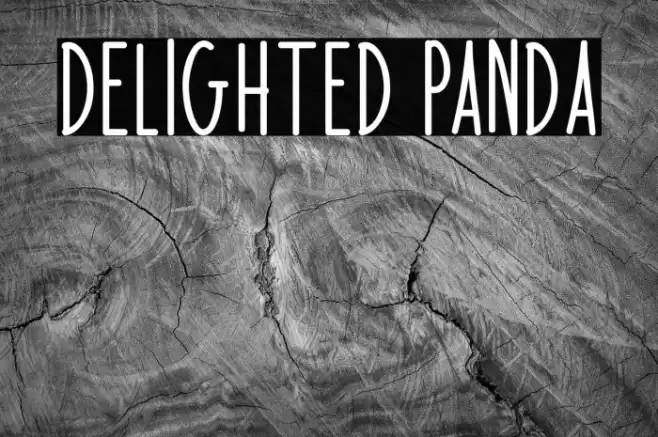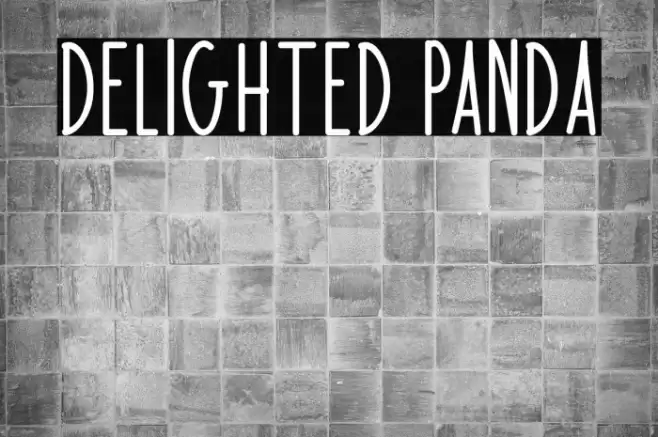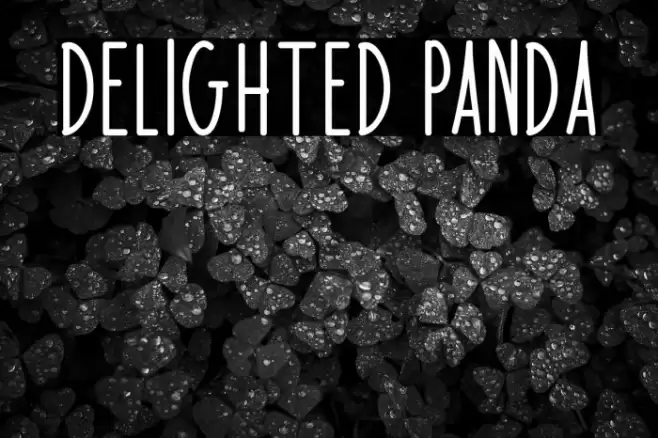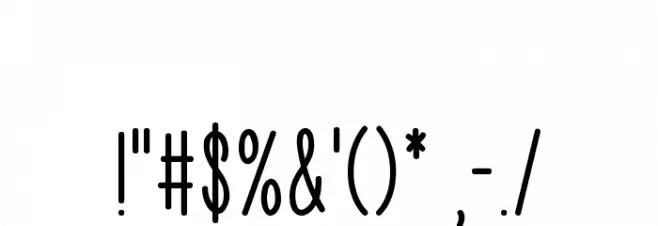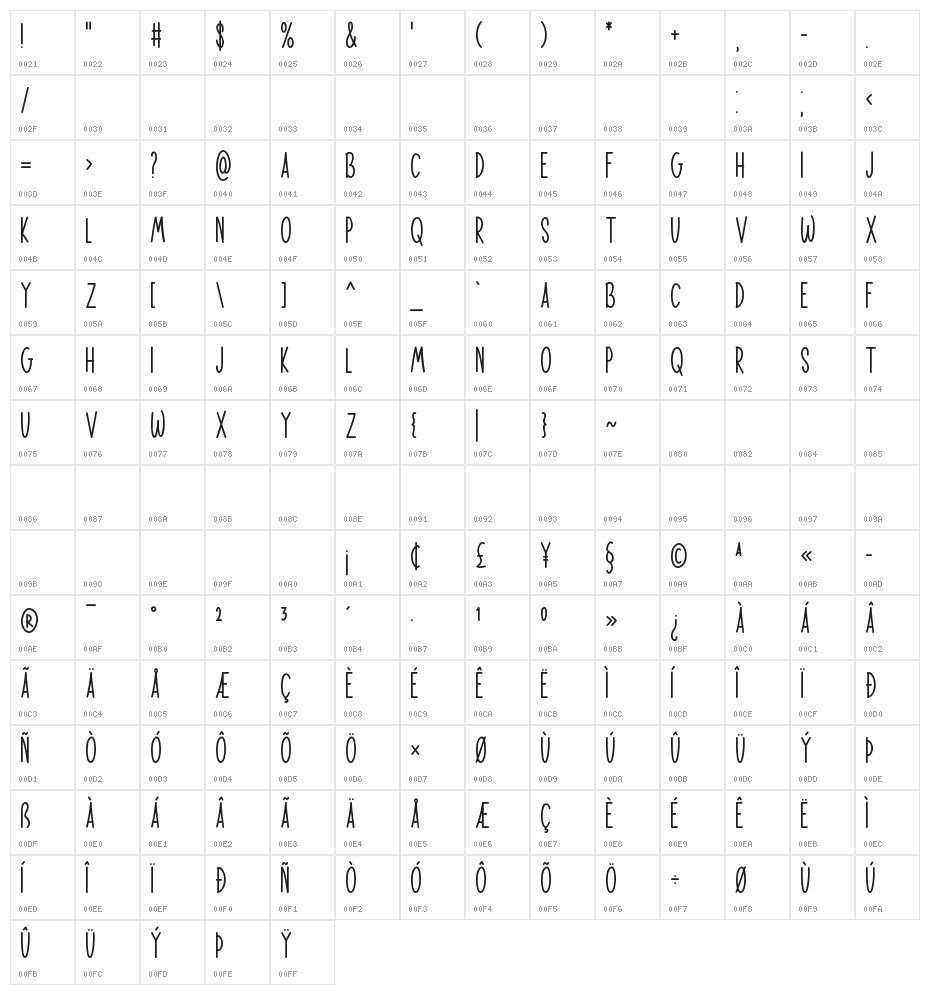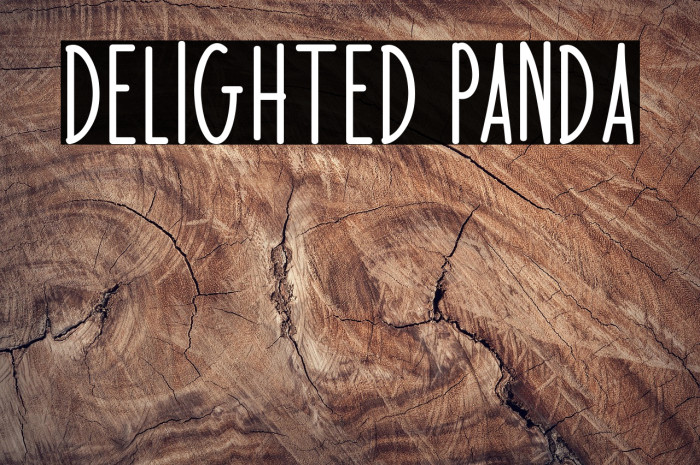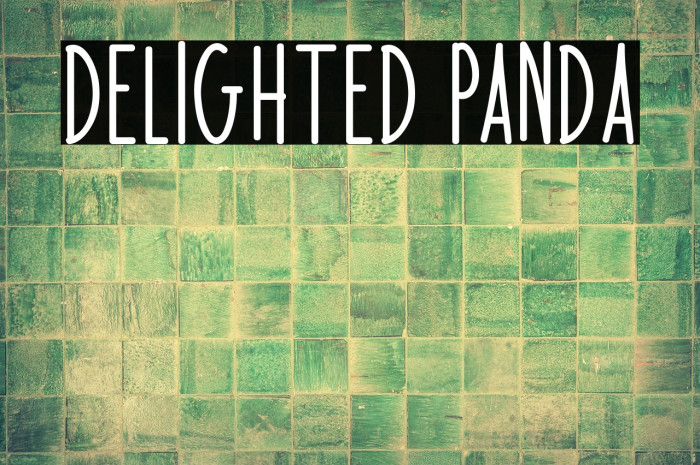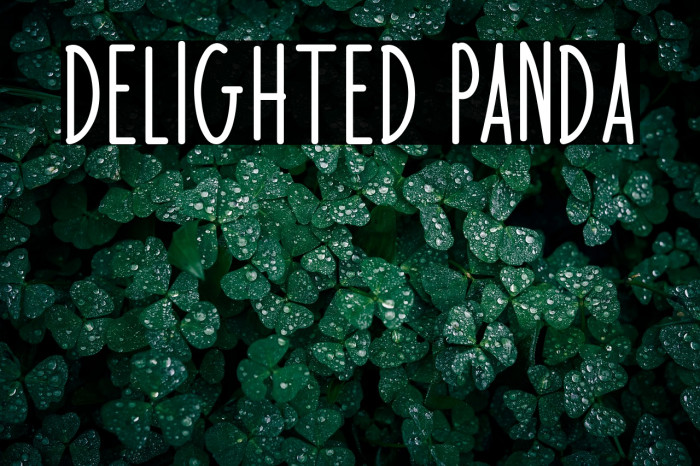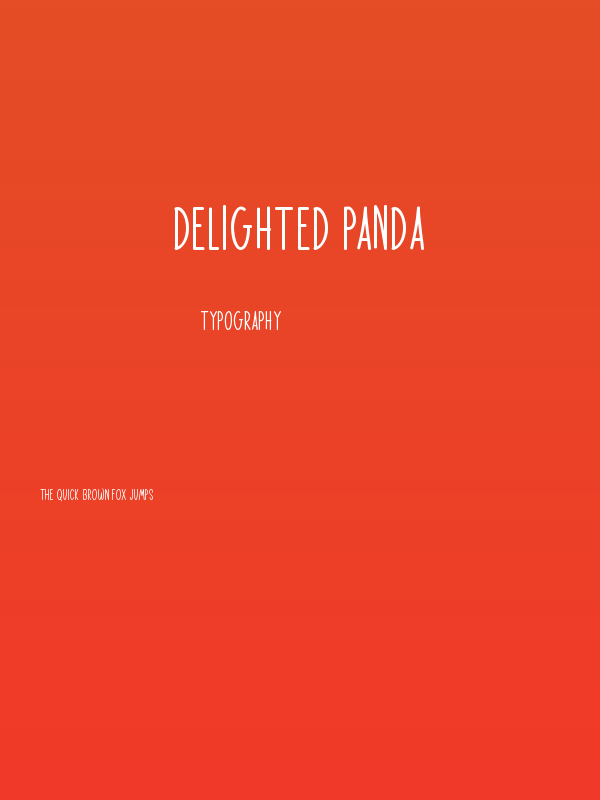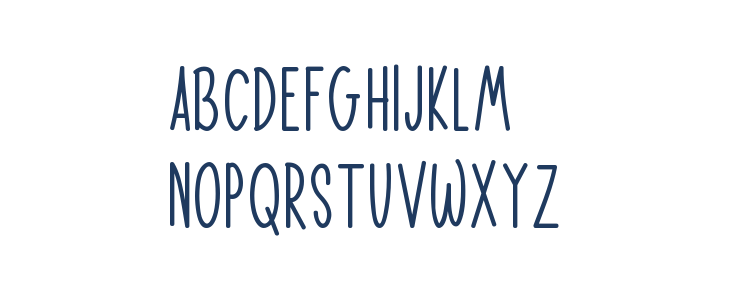
Delighted Panda Font
Delighted Panda Description
This playful and whimsical font features tall, narrow letters with a hand-drawn aesthetic. The strokes are consistent in width, giving it a clean and modern look. The characters have a slight tilt, adding a sense of movement and energy. The uppercase and lowercase letters maintain a uniform style, with rounded edges that soften the overall appearance. The font includes a full set of numerals and a variety of special characters, making it versatile for different design needs. Its informal and friendly style makes it suitable for creative projects.
A playful, hand-drawn font with tall, narrow letters and a whimsical style from Regular fonts.
- Proposed Projects: Ideal for children's books, greeting cards, playful branding, and creative posters.
- Overall Style: Playful
- Use Case: Headlines, Logos, Creative projects